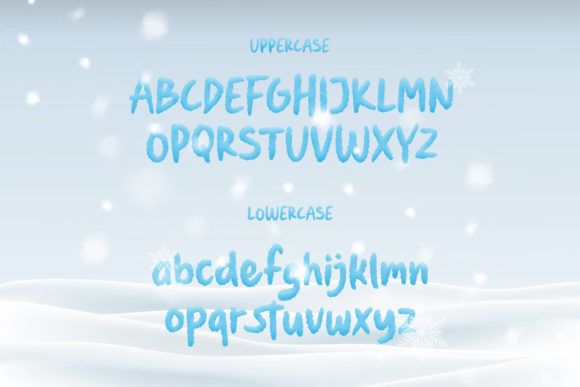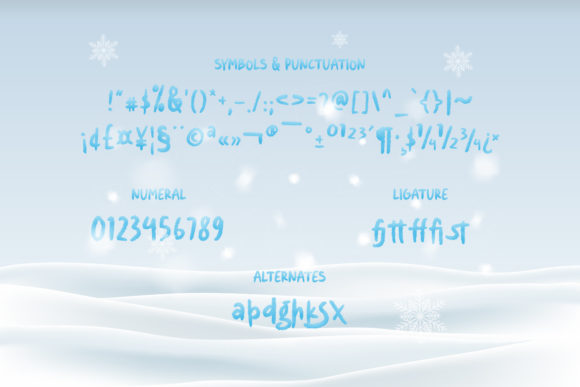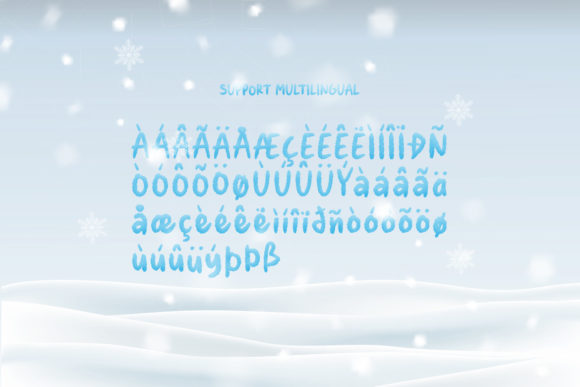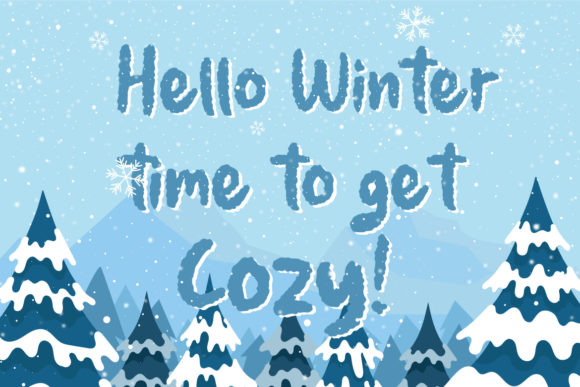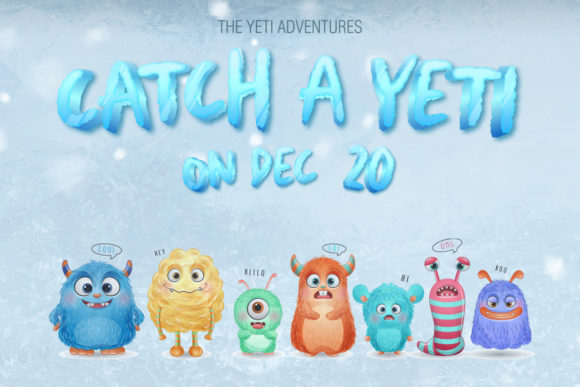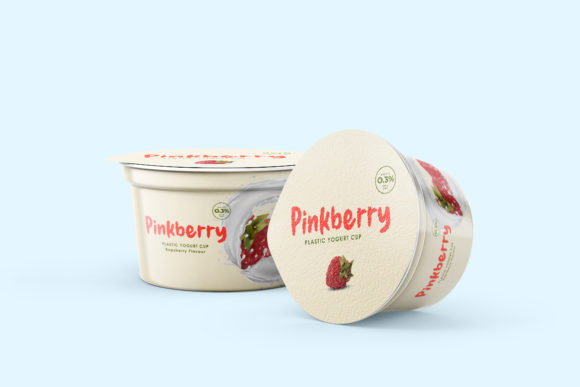
Fronzy Font: The Ultimate Display Font for Crafty Ideas
Are you a designer or crafter looking for a unique and bold font to take your creative projects to the next level? Look no further than Fronzy Font, a thick lettered cartoon-like display font that’s perfect for a wide range of applications. In this article, we’ll dive into the features and benefits of Fronzy Font, and explore how it can be used to add a touch of personality to your designs.
What is Fronzy Font?
Fronzy Font is a bold, thick lettered cartoon-like display font that’s designed to make a statement. Its original look is sure to appeal to a wide range of crafty ideas, from letterheads and titles, to stationery and more. With its playful and eye-catching design, Fronzy Font is the perfect choice for anyone looking to add a touch of whimsy to their designs.
Key Features of Fronzy Font
- Bold and Thick Lettering: Fronzy Font features bold and thick lettering that’s perfect for creating eye-catching displays.
- Cartoon-Like Design: The font’s cartoon-like design gives it a playful and fun feel that’s sure to appeal to a wide range of audiences.
- Versatile: Fronzy Font is versatile and can be used for a wide range of applications, from letterheads and titles, to stationery and more.
- Easy to Read: Despite its bold and playful design, Fronzy Font is easy to read, making it perfect for use in titles, headings, and other display text.
Benefits of Using Fronzy Font
So why choose Fronzy Font for your design projects? Here are just a few benefits of using this amazing display font:
- Adds Personality to Your Designs: Fronzy Font adds a touch of personality to your designs, making them stand out from the crowd.
- Perfect for Crafty Projects: The font’s playful and whimsical design makes it perfect for crafty projects, such as DIY tutorials, crafting blogs, and more.
- Great for Titles and Headings: Fronzy Font is perfect for use in titles and headings, where its bold and playful design can really make an impact.
- Easy to Pair with Other Fonts: Fronzy Font is easy to pair with other fonts, making it versatile and easy to use in a wide range of design projects.
Using Fronzy Font in Your Design Projects
So how can you use Fronzy Font in your design projects? Here are a few ideas to get you started:
- Letterheads and Stationery: Use Fronzy Font to create bold and eye-catching letterheads and stationery that’s sure to make an impression.
- Titles and Headings: Use Fronzy Font to add a touch of personality to your titles and headings, making them stand out from the crowd.
- Crafting Blogs and Tutorials: Use Fronzy Font to add a playful and whimsical touch to your crafting blogs and tutorials.
- DIY Projects: Use Fronzy Font to add a bold and eye-catching touch to your DIY projects, such as signs, posters, and more.
In conclusion, Fronzy Font is a bold, thick lettered cartoon-like display font that’s perfect for a wide range of crafty ideas. With its playful and eye-catching design, Fronzy Font is sure to add a touch of personality to your designs, making them stand out from the crowd. Whether you’re a designer or crafter, Fronzy Font is a great choice for anyone looking to add a bold and whimsical touch to their projects.